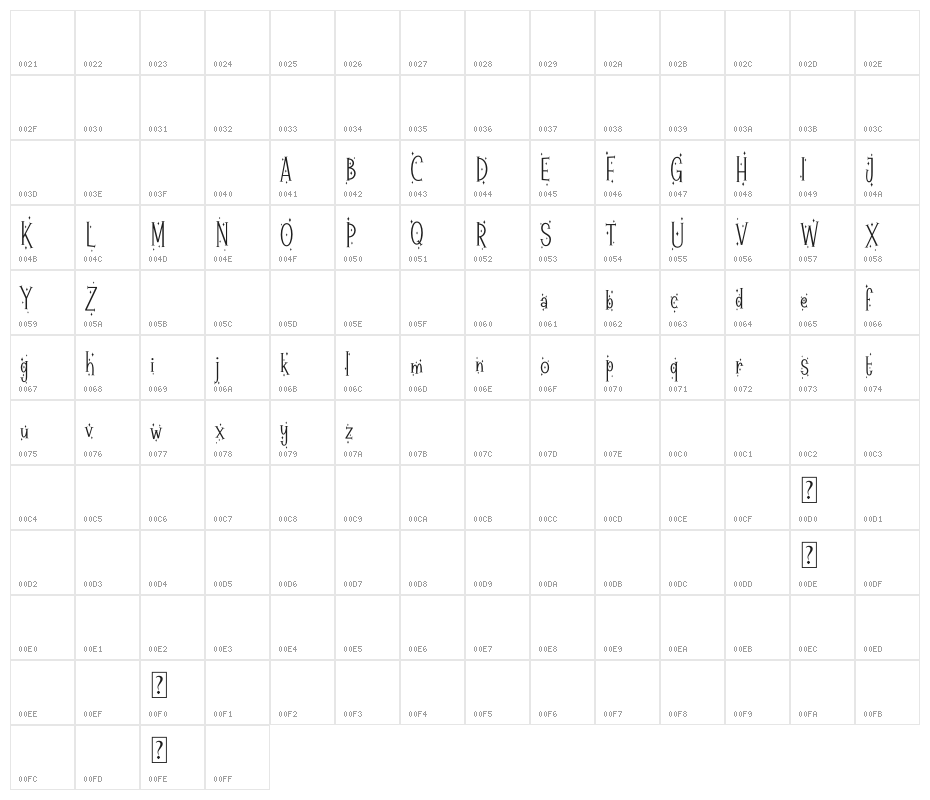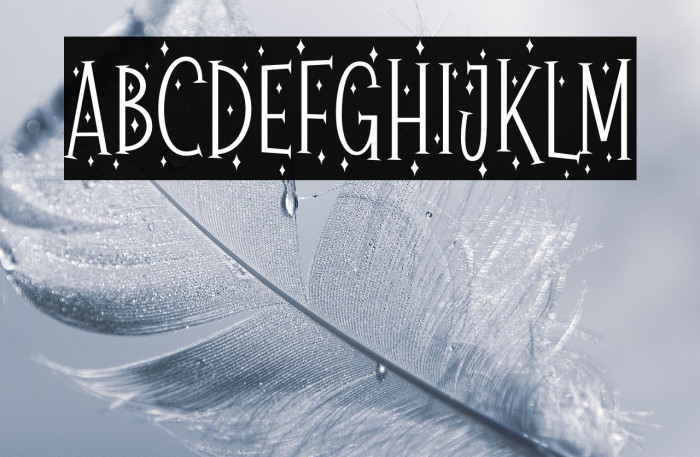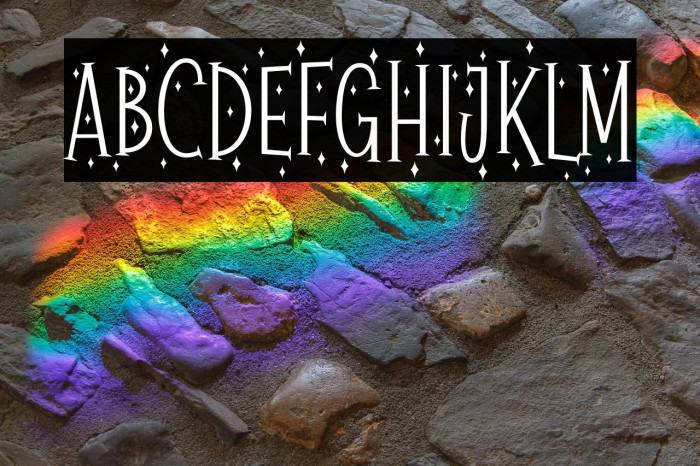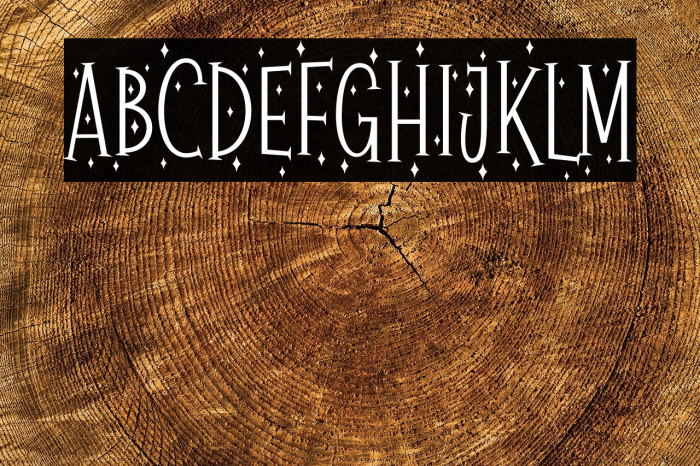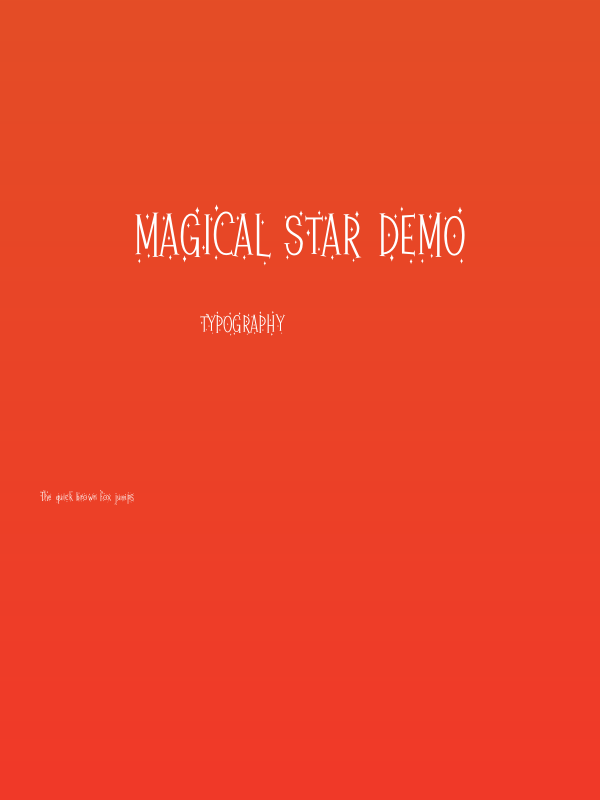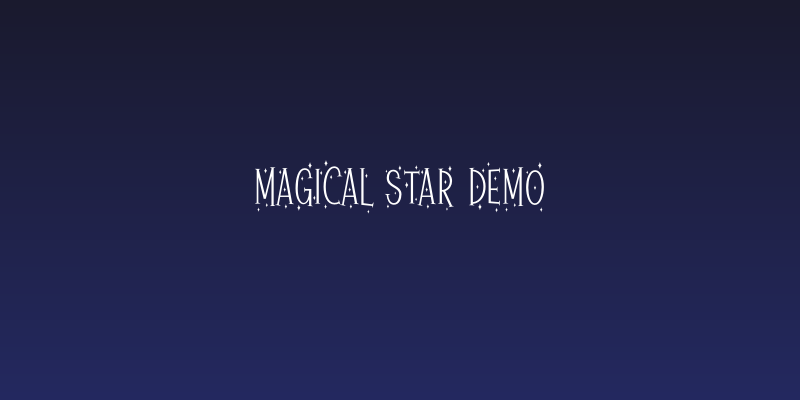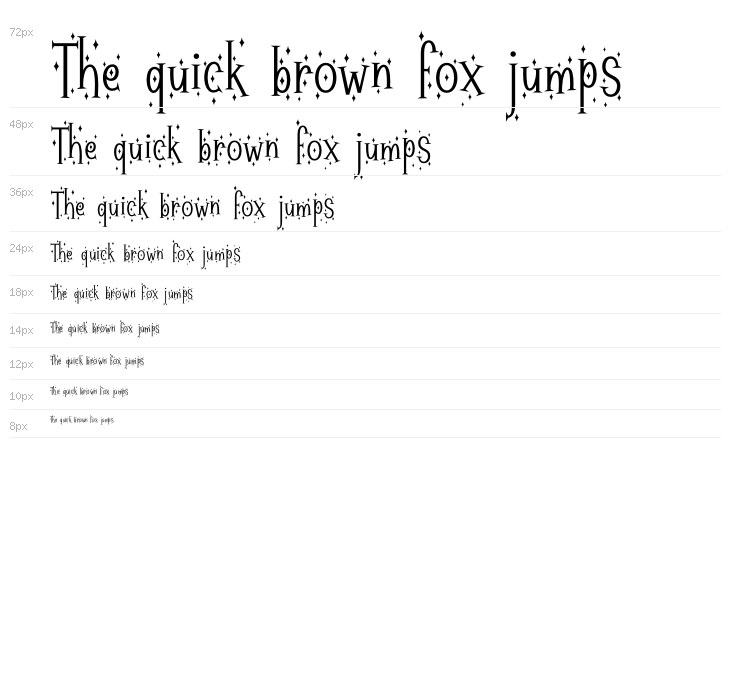
Magical Star Demo Font
Magical Star Demo Description
This whimsical font features a decorative style with star-like embellishments that give it a magical and enchanting appearance. The characters are tall and slender, with a playful yet elegant flair. Each letter is adorned with small star shapes, adding a unique and eye-catching element to the design. The font maintains a consistent stroke width, providing a balanced and harmonious look. Its distinctive style makes it ideal for projects that require a touch of fantasy or a mystical theme.
| Proposed Projects | Perfect for fantasy-themed invitations, magical storybook covers, children's party decorations, and whimsical branding projects. |